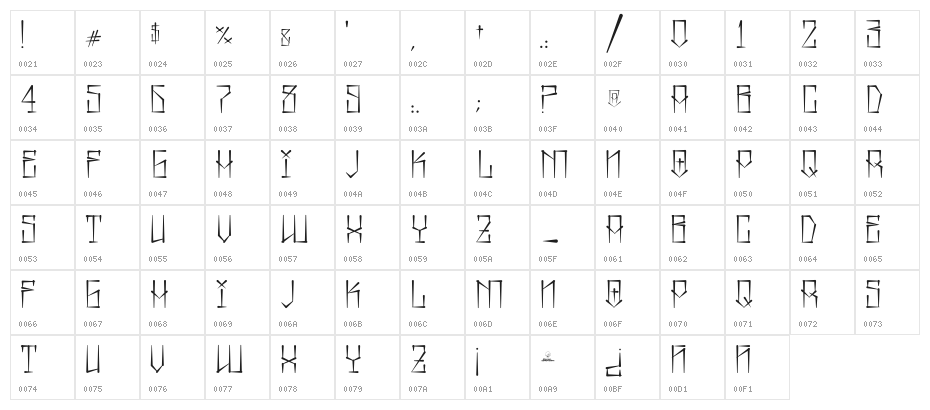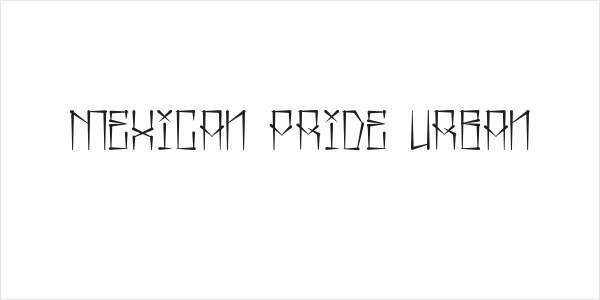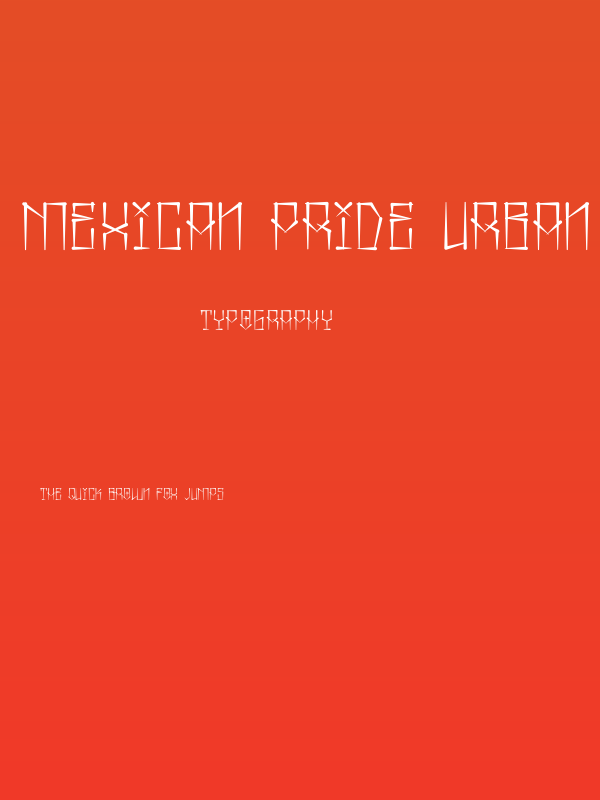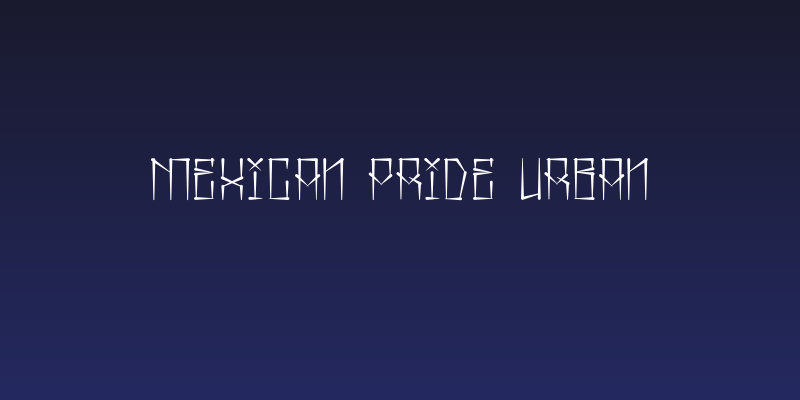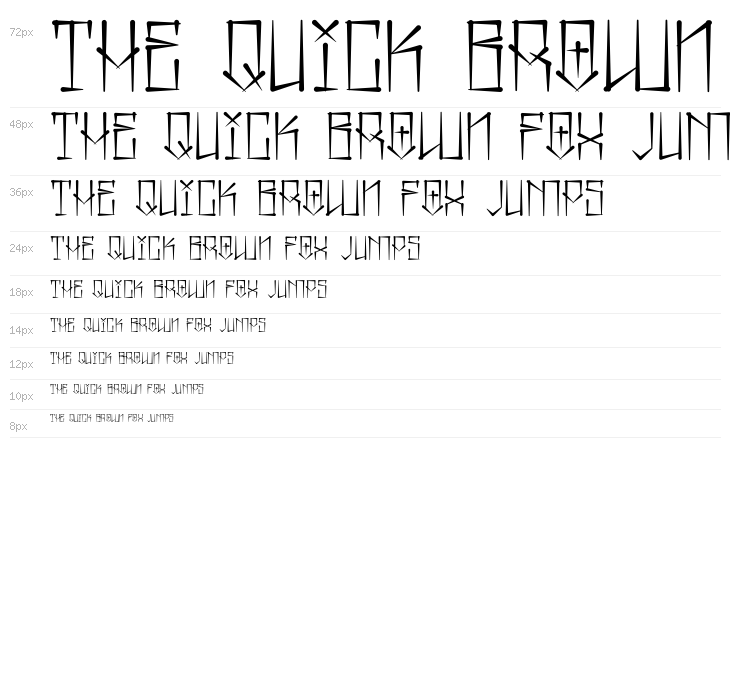
Mexican Pride Urban Font
Mexican Pride Urban Description
This font features a unique, urban-inspired design with a strong geometric structure. The characters are composed of bold, angular lines that create a sense of movement and energy. The uppercase and lowercase letters share a consistent style, with sharp edges and a modern aesthetic. Numbers and special characters are designed to match the overall theme, maintaining the same angular and bold characteristics. The font's distinctive style makes it stand out, with a slight nod to street art and graffiti influences, giving it a rebellious and edgy feel.
| Overall Style | Urban, Modern, Edgy |
| Proposed Projects | Ideal for streetwear branding, music album covers, urban event posters, and edgy graphic design projects. |